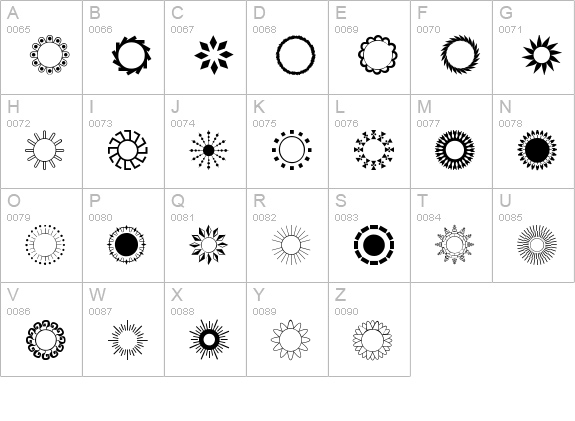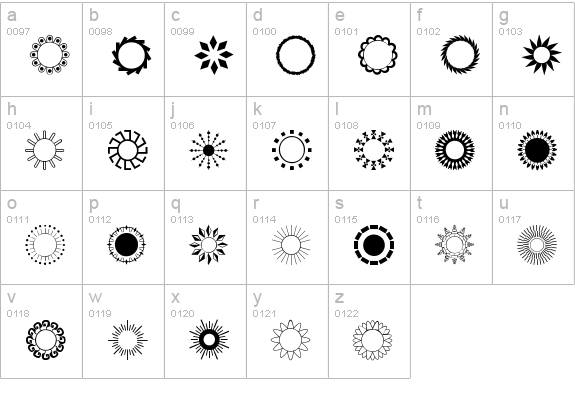
Sundings 2 JL Font Details
Sundings 2 JL font is a modern and stylish typeface that exudes elegance and sophistication. With its sleek lines and unique design, this font is perfect for a wide range of projects, from branding to invitations to social media graphics. Its versatility makes it a must-have for any designer looking to elevate their work to the next level. What makes Sundings 2 JL font even more appealing is that it is available for free download at FontsMarket.com. This means that you can add this stunning font to your collection without any cost, making it a valuable asset for all your design needs. Don't miss out on the opportunity to enhance your projects with the beauty and grace of Sundings 2 JL font - download it today and experience the difference it can make!